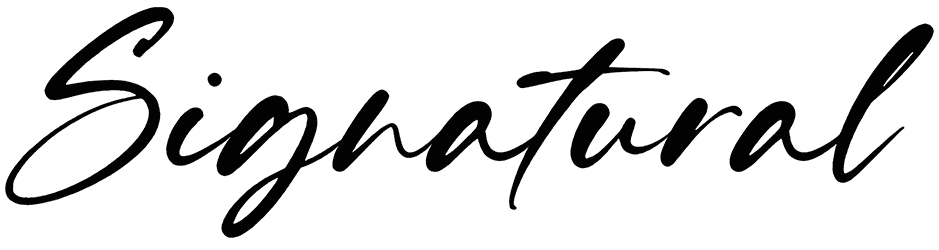
Signatural Font
Signatural is a modern handwritten font designed perfectly to mimic the natural signature. It has an elegant, cursive display that makes it look luxurious but in a quite professional manner.
This signature font is not readable enough and doesn’t support numerals, but there is no need to worry because it can embrace any of your innovative ideas with a big smile and make them stand out. You can use it for branding, posters, watermarks, logotypes, or business cards.